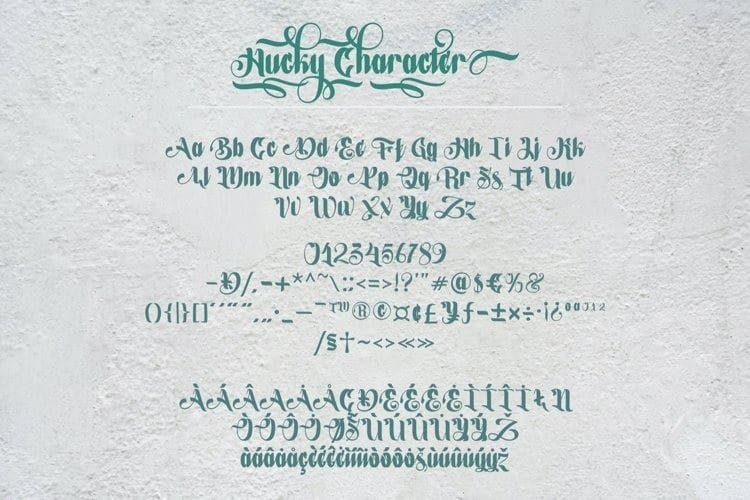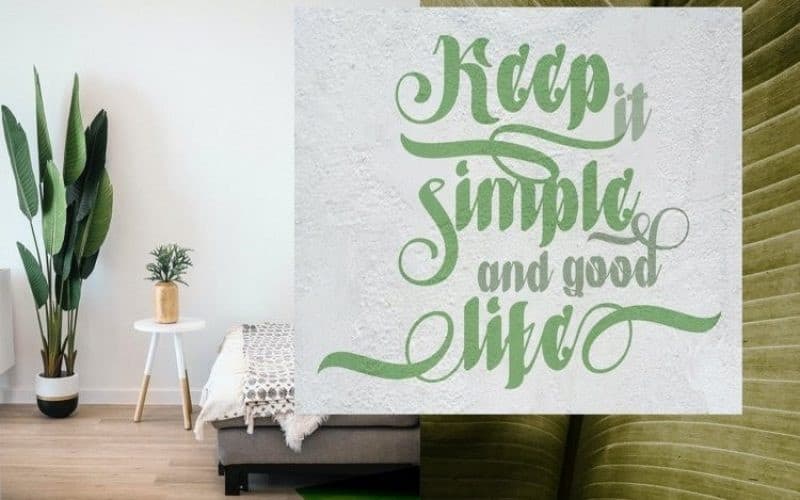
Hucky Calligraphy Font
Hucky Calligraphy Font is a calligraphy font with many alternative lowercase glyphs plus doodles, a kind of classic copper decorative script with a modern twist, designed with high detail for an elegant style. It’s a playful decorative display font suitable for any graphic design project such as lettering, mural, t-shirt, print template, business cards, logo, poster, photography, quotes, signage, etc.